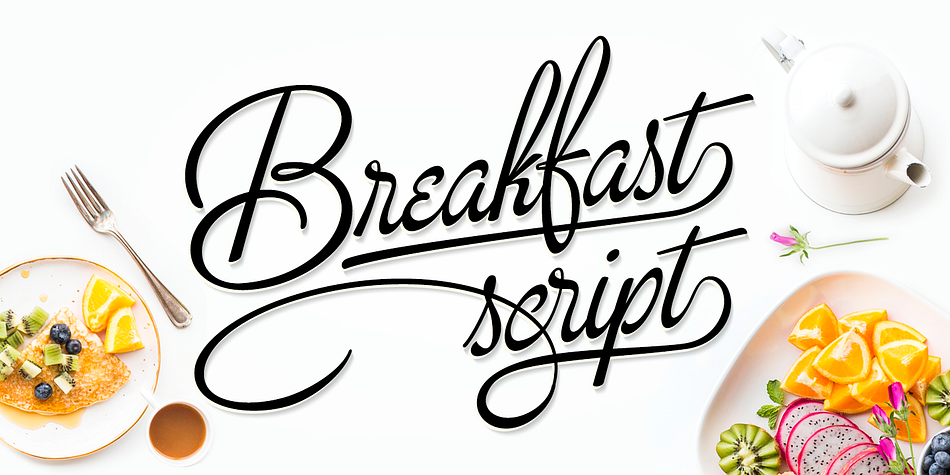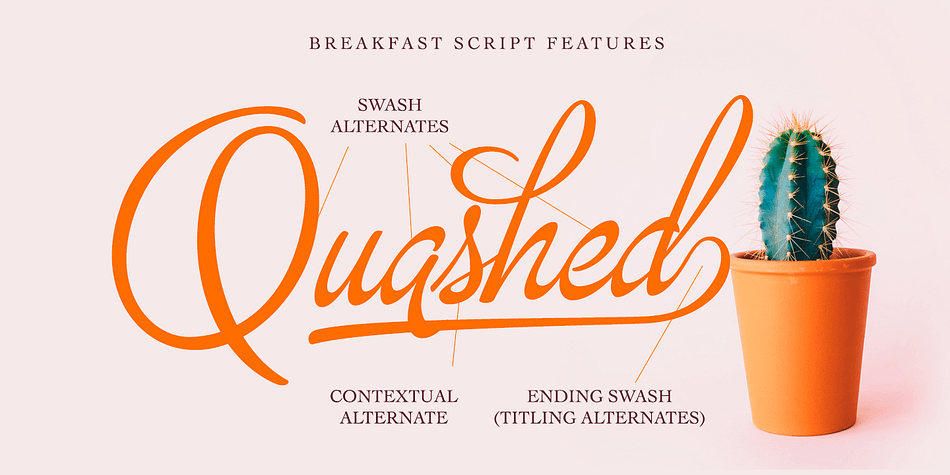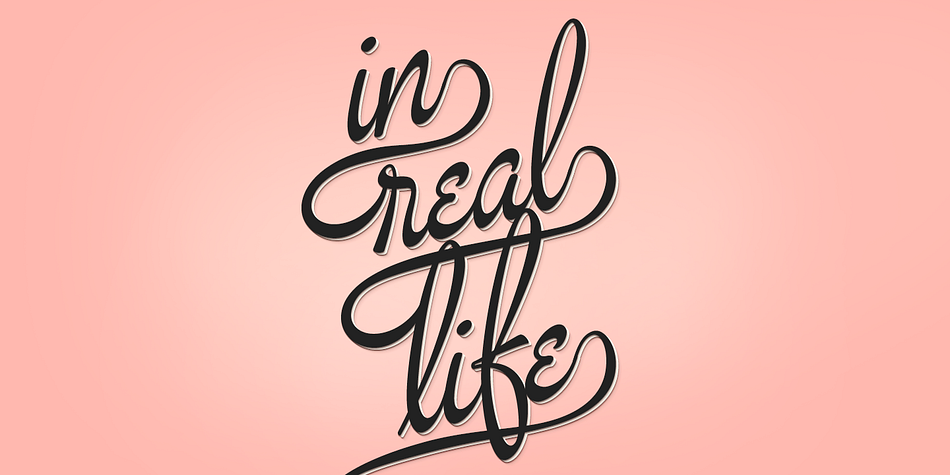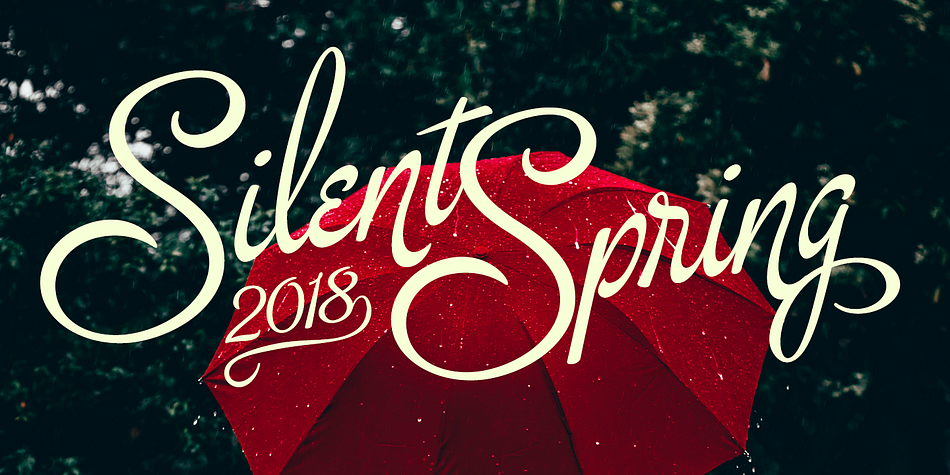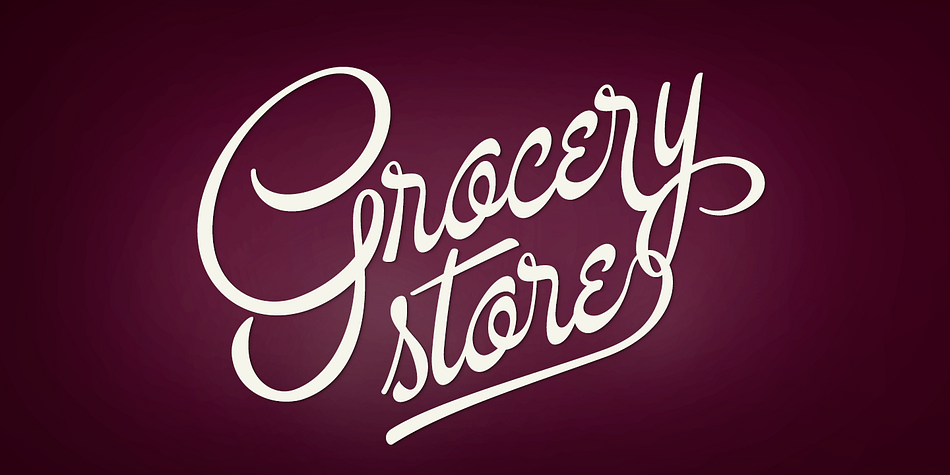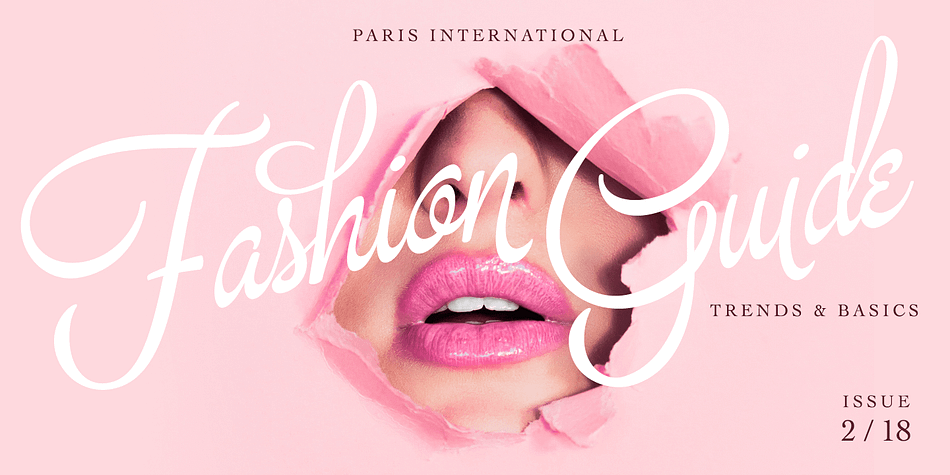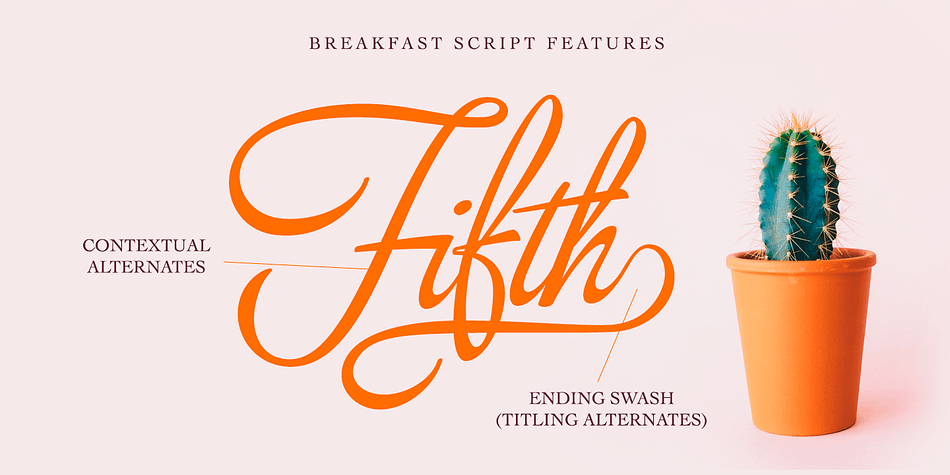
Designed by Emil Karl Bertell, Breakfast Script is a script font family. This typeface has three styles and was published by Fenotype.
Breakfast Script is an elegant connected script family of three weights. Breakfast Script is equipped with Contextual Alternates that helps to keep connections smooth. Every standard character also has Swash Alternate for more funky letters. In addition there’s 26 ending swooshes placed in a-z that you can access from Stylistic Alternates.
Breakfast Script is a great display type that works as a logotype or fancy headline type.